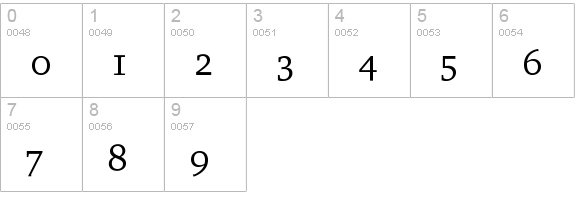
CharterEF-RegularSC is a versatile and elegant font that exudes a classic and sophisticated charm. With its timeless design and clean lines, this font is perfect for adding a touch of refinement to any project. Its slender and elongated characters make it ideal for various uses, from formal invitations to editorial content. What sets CharterEF-RegularSC apart is not only its aesthetic appeal but also its accessibility. This font is freely available to download at FontsMarket.com, making it a valuable asset for designers, creatives, and anyone looking to elevate their work with a touch of sophistication. Whether you're crafting a wedding invitation, designing a logo, or creating a publication, CharterEF-RegularSC is a versatile choice that will never go out of style. Elevate your projects with this timeless and free font today.